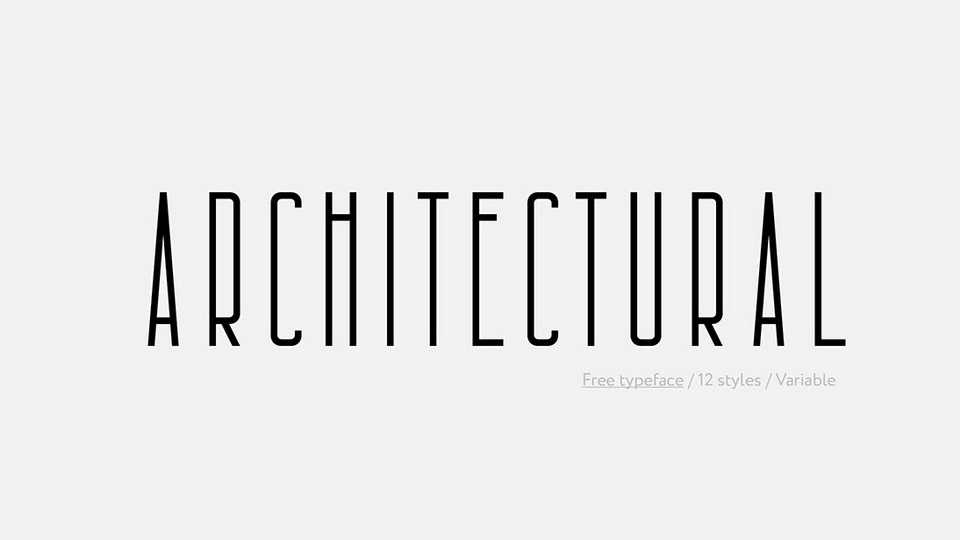
Download Architectural typeface, a sans serif display font family in 12 styles, including variable font. Architectural is based on the drawing fonts used by students in the creative works, namely, on narrow and wide architectural typefaces.
Designer: Igor Stepanchenko